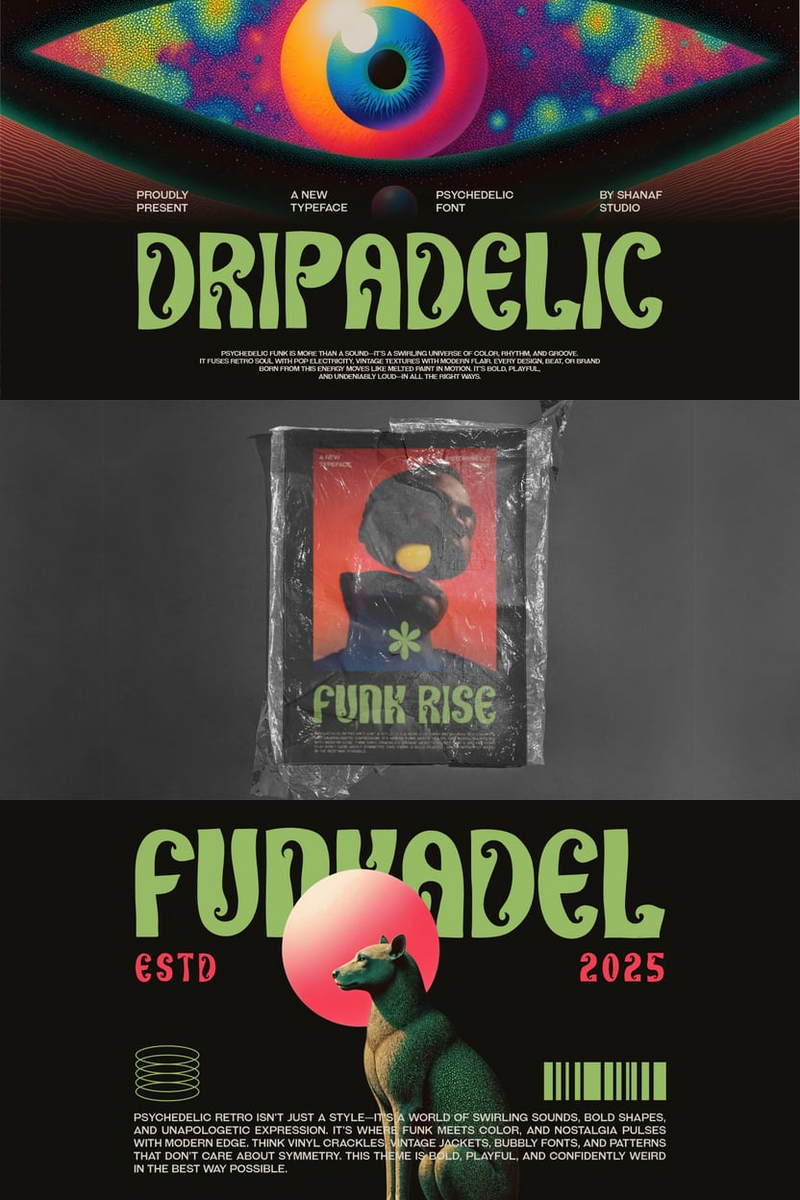
Dripadelic: Infuse Timeless Elegance into Your Bookstore's Brand & Logo
Well hello there, fellow lover of stories and beautiful things! I'm Dripadelic, and yes, I know what you're thinking – "Dripadelic? That sounds... intriguing." And you'd be absolutely right! I'm here to tell you a little secret about myself, especially if you're an independent bookstore owner or crafting visual magic for one.
You see, in a world brimming with fleeting trends, I stand apart. I wasn't born from a momentary fad, but from the quiet hum of classic literature, the elegant curl of a well-worn page, and the enduring charm of a beloved bookmark. I carry the whispers of forgotten libraries and the vibrant energy of today's thriving community spaces. When you're looking to bridge that beautiful gap – celebrating heritage while embracing the now – that's precisely where I truly come alive. I'm not just a set of letters; I'm a narrative waiting to unfold in your modern design projects, offering that perfect touch of timeless elegance.
My special sauce? It's that inherent grace, a refined flow that feels both utterly classic and wonderfully fresh. I solve that common design challenge of needing something that won't look dated next year, or even ten years from now. I bring a sophisticated yet approachable character to your visual identity, making your bookstore feel both established and inviting. I help you say, without words, "Here, stories live forever, and everyone is welcome." This is the Dripadelic font difference.
So, if you're ready for a font that speaks volumes without shouting, a true cornerstone for your brand, remember: Dripadelic: Where Every Word Tells a Timeless Tale.
Imagine me gracing your storefront signage, a beacon of classic charm for passersby. Picture me as the foundation of your bookstore's logo – a wordmark that instantly conveys heritage and warmth, making your brand memorable. Think of me on your event posters, inviting readers to author talks with an air of sophisticated anticipation. I'm perfect for your membership cards, gift certificates, even the delicate end-pages of your own custom-printed journals. My readability ensures your patrons feel comfortable, and my visual impact ensures they remember you long after they've left with a new favorite book.